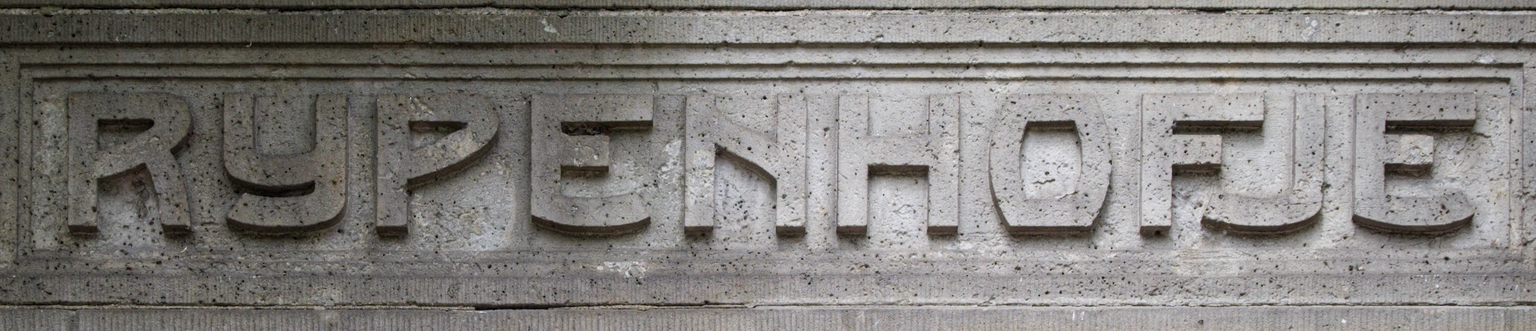
Hofje
Hofje is a display typeface designed by Ramiro Espinoza and inspired by the lettering above the entrance of the Rijpenhofje, located at Rozengracht 116–138 in Amsterdam, the Netherlands. Designed by architect A. Salm and built between 1912 and 1913, the complex features an inscription that can be classified as a restrained Jugendstil sans serif, a style sometimes historically referred to as Künstler-Grotesk or “Artist Sans.”
Espinoza studied the proportions, stroke modulation, and distinctive details of the inscription and translated these qualities into a contemporary digital typeface. As with all Brutal Types releases, he refined the forms, improved consistency, and expanded the character set for contemporary use while preserving the balance between functional clarity and decorative refinement that characterizes the original lettering.
With its distinctive blend of geometric clarity and subtle organic styling, Hofje is well suited for branding, editorial design, posters, packaging, book covers, signage, websites, and cultural projects that benefit from a refined and historically informed typographic voice. Rooted in Amsterdam’s early twentieth-century architectural heritage, the typeface brings the sophistication of Jugendstil lettering into contemporary graphic design.